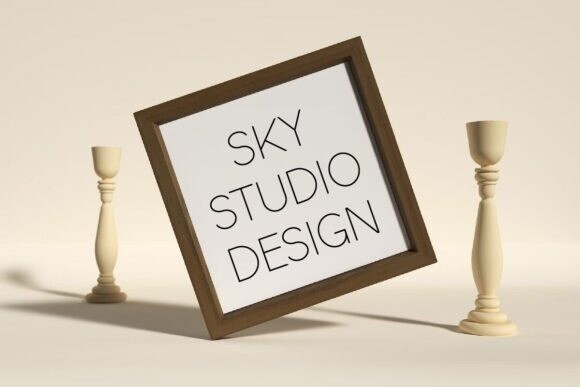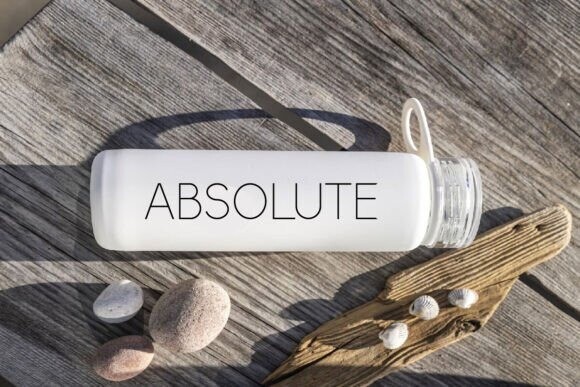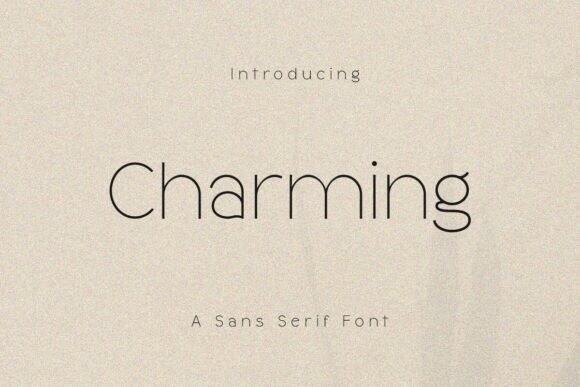
Charming Typeface
Charming Typeface is a simple and neat sans-serif font designed for a clean, retro look. With balanced vintage proportions, this font is perfect for creating a minimalist aesthetic in craft design, fashion products, wedding invitations, tote bags, packaging, skincare product, quotes, t-shirts, gift labels, logos, web design, branding, and more!